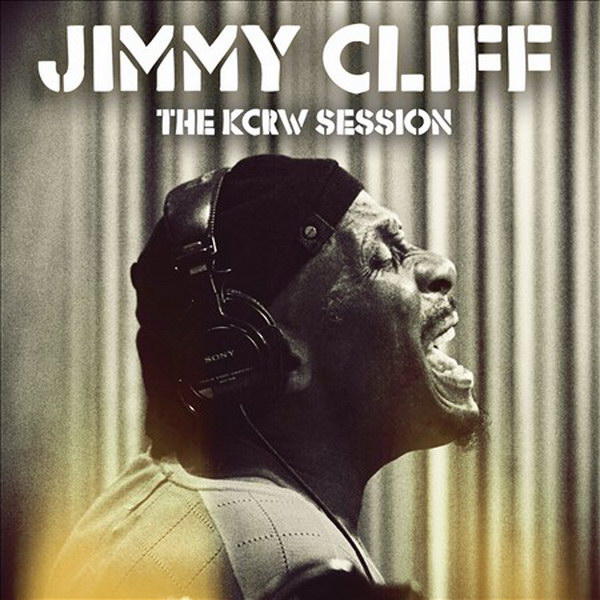
The KCRW Session Font
Fonts in UseThe KCRW Session is a live album by Jamaican singer Jimmy Cliff, recorded in 2012 for the radio station KCRW. The album features stripped-down acoustic versions of some of Cliff's classic songs, as well as a cover of "Ship Is Sailing" by Irish musician Paul Brady.
It is likely that the font utilized on the cover is Rafika, which is a stencil font designed by Ray Larabie that appears rough and painted. The font comes with a comprehensive character set and can be obtained for free from the Fonts Used Section.